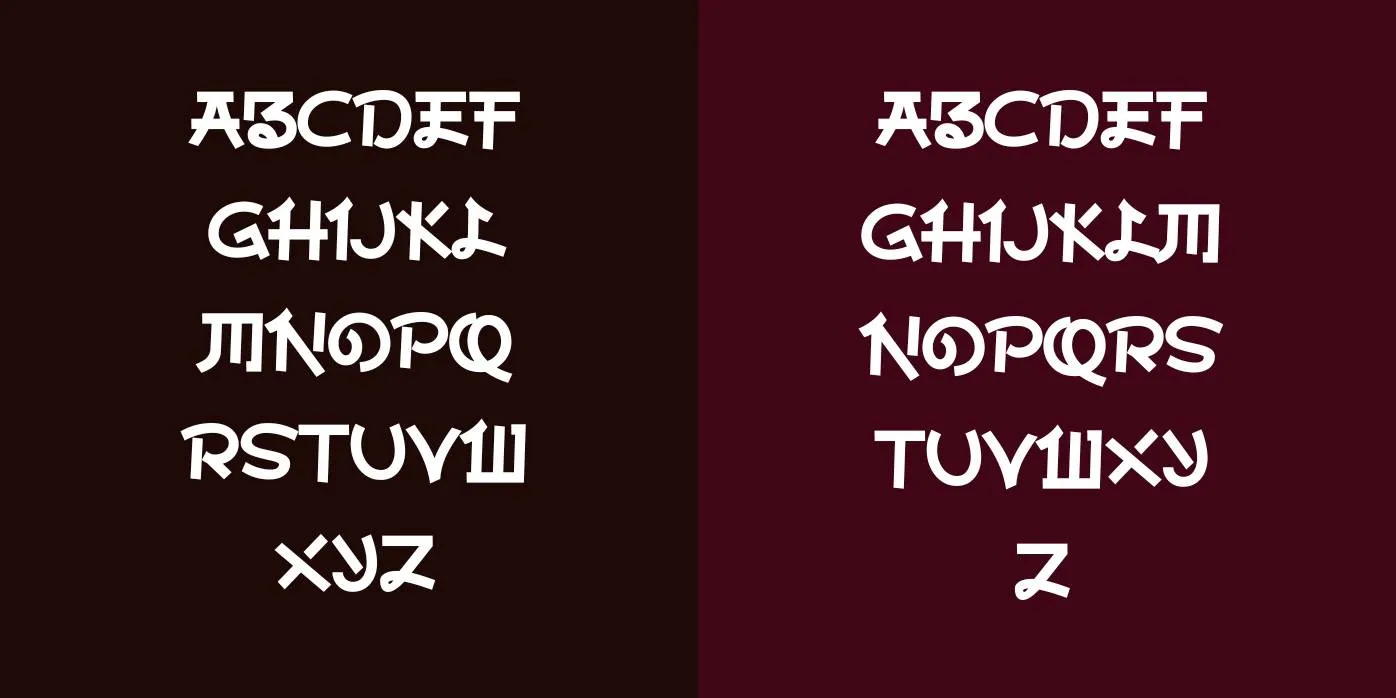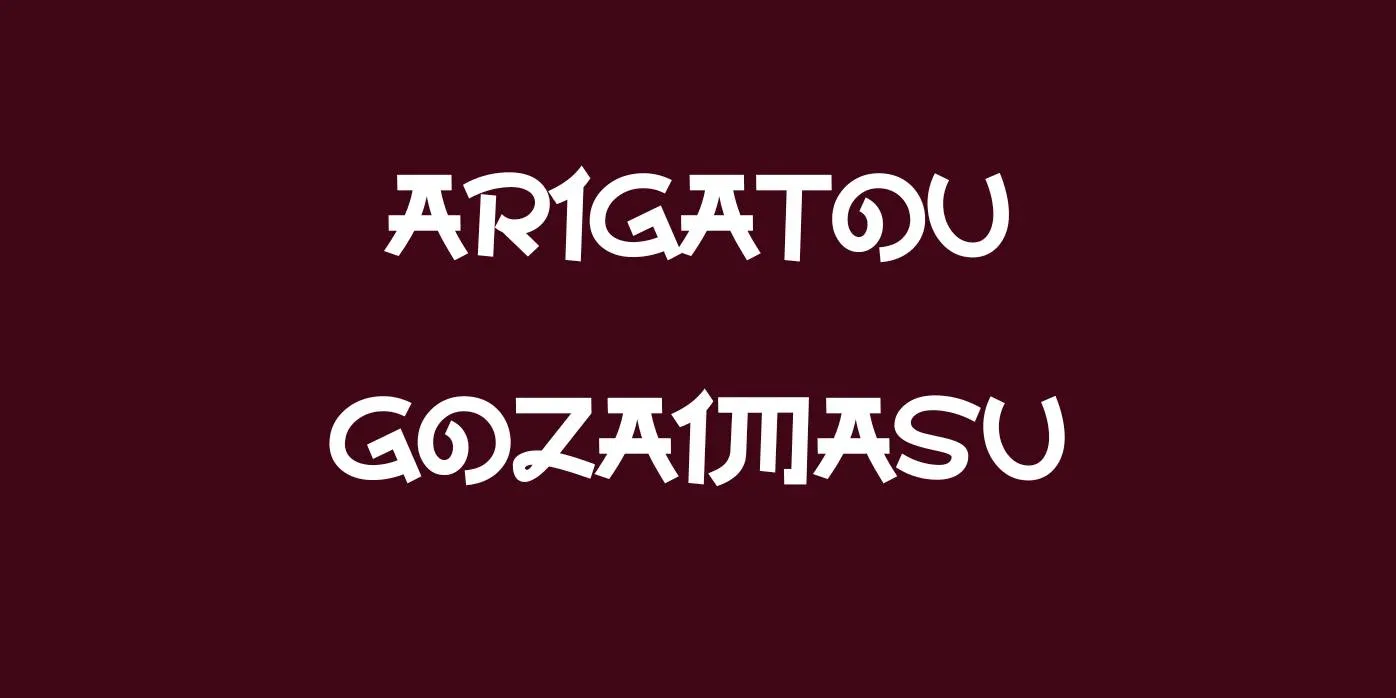
Arigatou Gozaimasu Font
Arigatou Gozaimasu Font is a very amazing and charming typeface that give a Chinese language look to your design. It was designed by a famous designer Wahyu Eka Prasetya(Wep), Who also design many amazing fonts. The weight of the font is semi-bold and its width is condensed which gives a bold look to your design. This font has ALL-CAPS letters and around 98 glyphs which include uppercase, punctuaions, symbols and numbers.  This typeface has a formal and beautiful sense about it, and it writes gracefully.
As a result, several fashion brands use this typeface in their publications. Usage This stunning font is considered a suitable choice for both print and digital media. This font is also famous for making thumbnails, branding, and making social media posts. It is a modern font and can be used for making tattoos.
Arigatou Gozaimasu Font is a very amazing and charming typeface that give a Chinese language look to your design. Who is the designer of Arigatou Gozaimasu Font? It was designed by a famous designer Wahyu Eka Prasetya(Wep), Who also design many amazing fonts. What file format does Arigatou Gozaimasu font support?